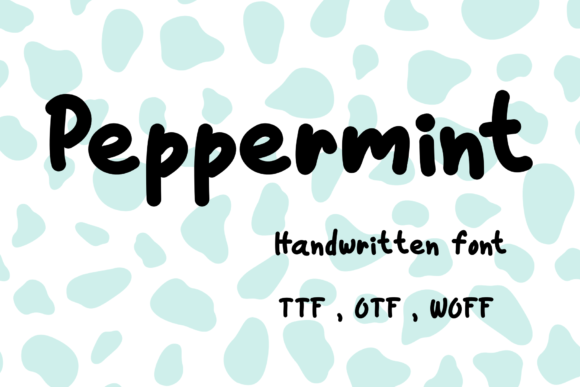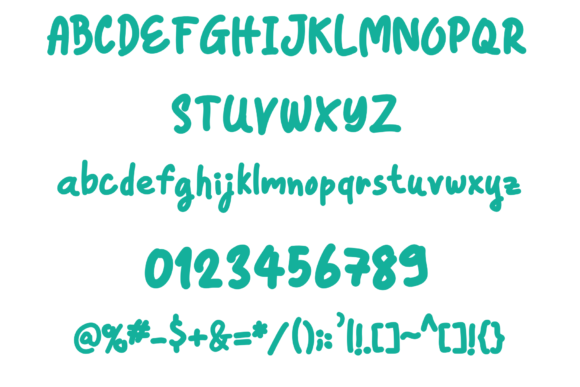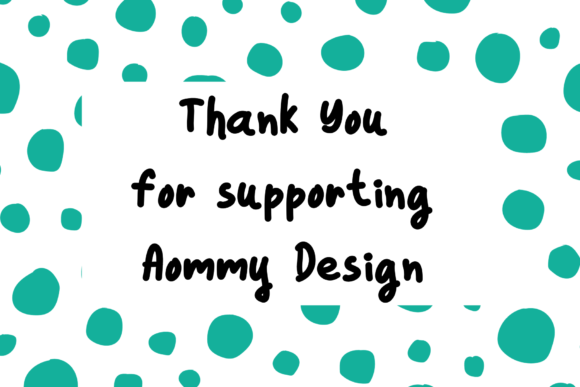
Pepperment Font
About Pepperment Font
Peppermint is a simple and cute handwritten font. Its sweet brush as well as its round and tiny letters make this font incredibly versatile, fitting any design that needs a friendly touch.